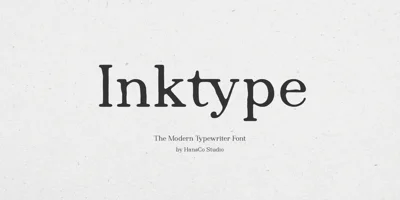
Inktype Font
Inktype Font is perfect for traditional printing press branding, vintage publishing house materials, artisanal ink manufacturer marketing, calligraphy studio signage, fountain pen retailer communications, and authentic printmaking workshop promotions. Its inky character makes it ideal for letterpress printers, vintage stationery boutiques, ink artisans, traditional bookbinders, and any application requiring authentic typography that conveys ink craftsmanship, printing heritage, and the timeless artistry of traditional ink-based printing and writing methods.
Inktype Font is exciting because it captures the rich heritage and tactile beauty of traditional ink typography through authentically crafted letterforms that reflect the fluid movement and organic texture of ink flowing from pen to paper. Its inky proportions and printing-inspired details evoke the satisfying rhythm of traditional printing presses and the meditative quality of hand-lettered ink work, making it perfect for brands celebrating traditional printing crafts and ink artistry. The font's ink character transforms digital text into expressions of printing tradition.
Inktype Font family includes ink-inspired weight variations typically featuring Light, Regular, Medium, and Bold options with fluid styling that maintains printing authenticity. The family often incorporates printing symbols, ink droplets, and traditional typography elements designed for artisanal printing applications, providing designers with comprehensive tools for creating authentic, ink-focused typographic compositions.
When selecting traditional printing typography solutions, Inktype Font represents an exceptional choice for heritage printing and ink artistry projects. This authentic typeface brings instant printing tradition to any design, making it invaluable for traditional printers, ink craftspeople, and heritage printing organizations celebrating ink craftsmanship. Whether you're developing letterpress studio branding, creating traditional printing workshop materials, or designing vintage ink product marketing, Inktype Font provides the ink authenticity and printing heritage essential for honoring traditional typography in today's craft-conscious printing marketplace.